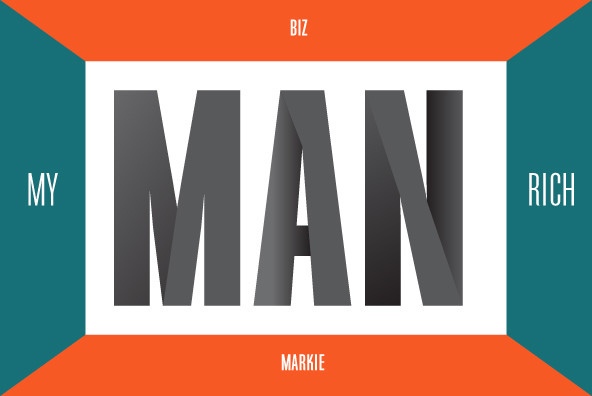
Directors Gothic 210 Font
Directors Gothic 210 Font is perfect for film studio branding, entertainment production companies, cinematic poster campaigns, theater marquee signage, movie credit sequences, broadcasting network identities, professional video production, and dynamic entertainment advertising. This authoritative typeface works magnificently in both digital applications and print media where cinematic leadership and entertainment industry excellence are paramount design considerations.
What makes Directors Gothic 210 Font so exciting is its masterful interpretation of classic Hollywood typography through refined letterforms that capture the sophisticated balance of creative vision and professional authority that defines successful entertainment leadership. The font features distinguished characters with directorial proportions, cinematic elegance, and entertainment industry details that communicate artistic credibility, production expertise, and the refined taste necessary for creating compelling visual narratives. Its professional personality and film industry heritage make it ideal for entertainment organizations seeking to establish creative authority while appealing to audiences who appreciate both artistic innovation and professional excellence.
The Directors Gothic 210 Font family includes comprehensive weight variations from light to bold, along with matching italic styles and cinematic alternates. Each style maintains the typeface's directorial character while offering extensive multilingual support, entertainment-focused numerals, professional punctuation marks, and special symbols designed to enhance film industry communications and entertainment branding efforts across international media markets.
This extraordinary typeface represents the perfect evolution of entertainment typography optimized for contemporary film and media applications while preserving classic Hollywood sophistication. Whether you're developing independent film identities, creating television network materials, or designing entertainment marketing campaigns, Directors Gothic 210 Font Free Download delivers the cinematic sophistication and versatility needed for successful entertainment communications. The font's refined aesthetic makes it particularly effective for film production companies, television networks, entertainment agencies, and organizations celebrating the artistic and professional excellence of modern entertainment industry.
The meticulously crafted cinematic construction and optimized entertainment performance in Directors Gothic 210 Font ensure maximum professional impact while maintaining clear communication across all film applications. Its distinguished presence makes it ideal for entertainment branding, cinematic marketing materials, and professional communications where its full directorial character can create memorable impressions and establish immediate association with creative excellence and entertainment industry sophistication.